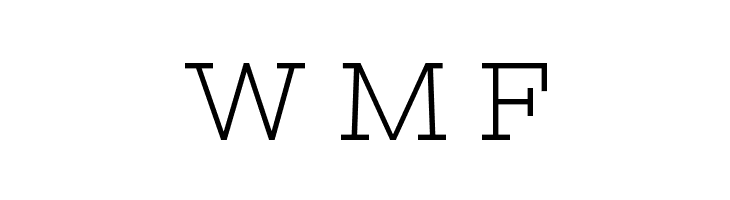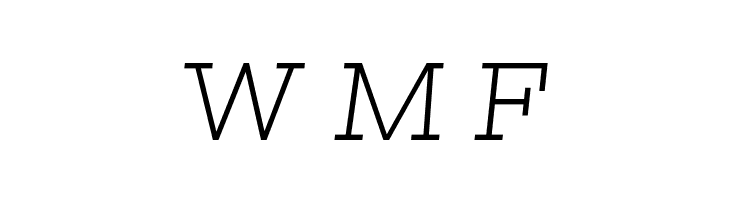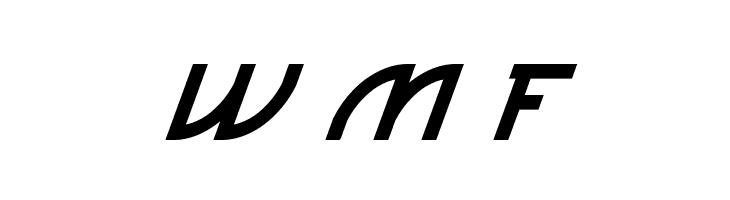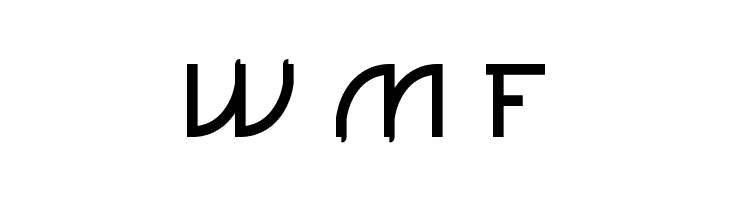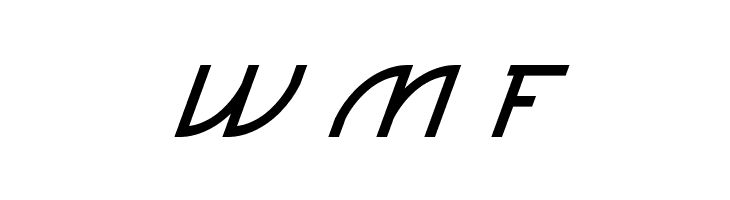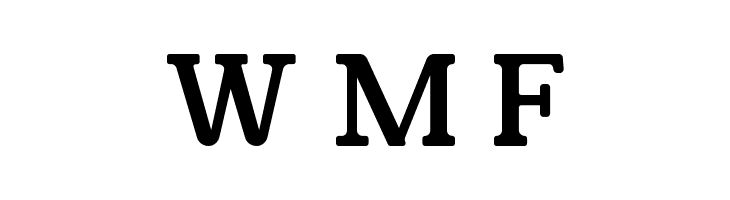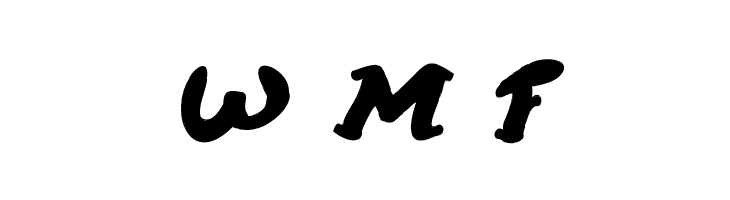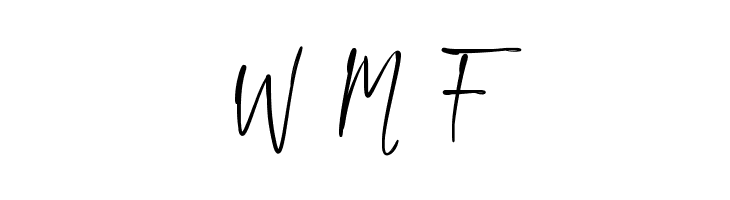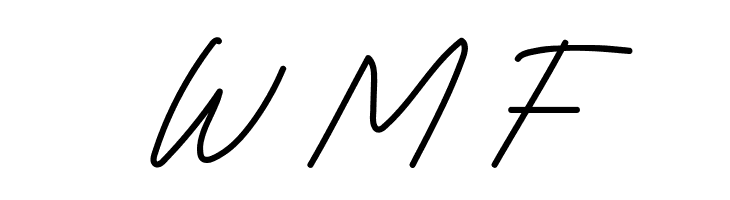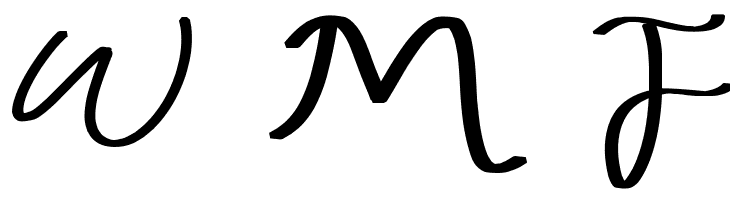
A modern serif font with medium contrast and classic elegance.
An elegant italic font with a clean, sophisticated style.
A bold, italicized font with a modern, angular design.
A modern, geometric font with sharp edges and smooth curves, ideal for bold headlines.
A dynamic italic font with sharp, angular lines and a modern aesthetic.
A bold, classic serif font with moderate contrast and slightly condensed proportions.
A bold, dynamic script font with sweeping strokes and artistic flair.
A lively script font with fluid, dynamic strokes and a handwritten calligraphy style.
A fluid and elegant script font with a handwritten calligraphy style.
A flowing, cursive script with elegant loops and swashes, mimicking traditional calligraphy.